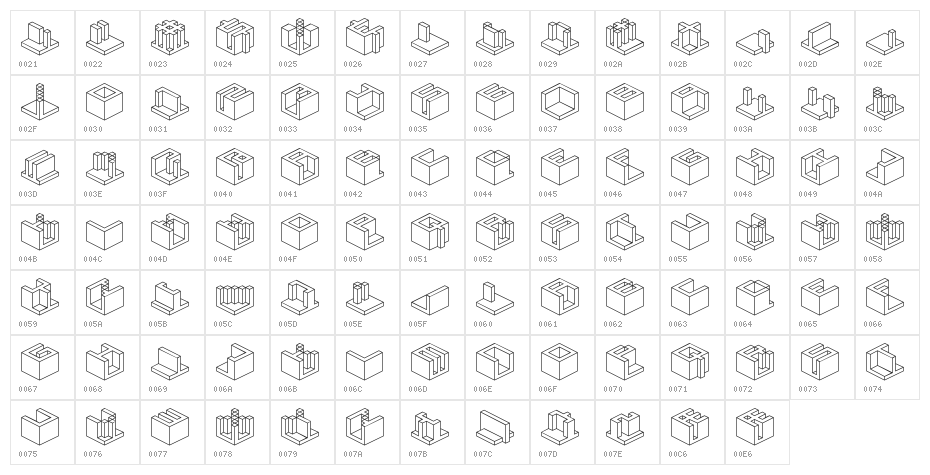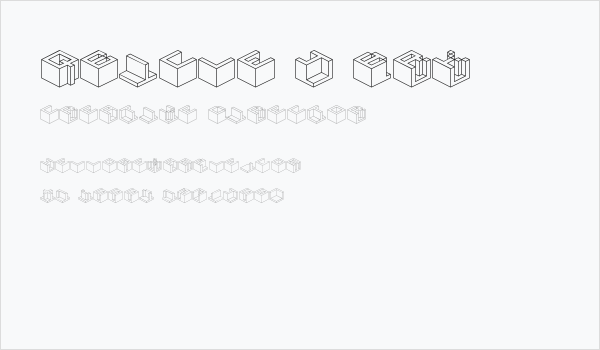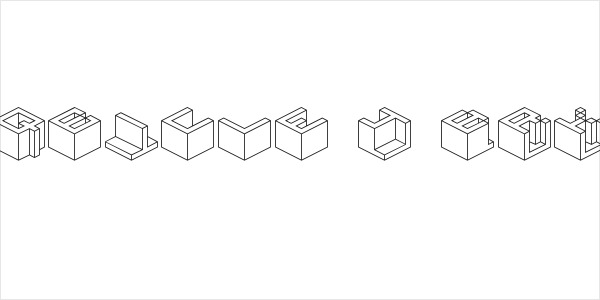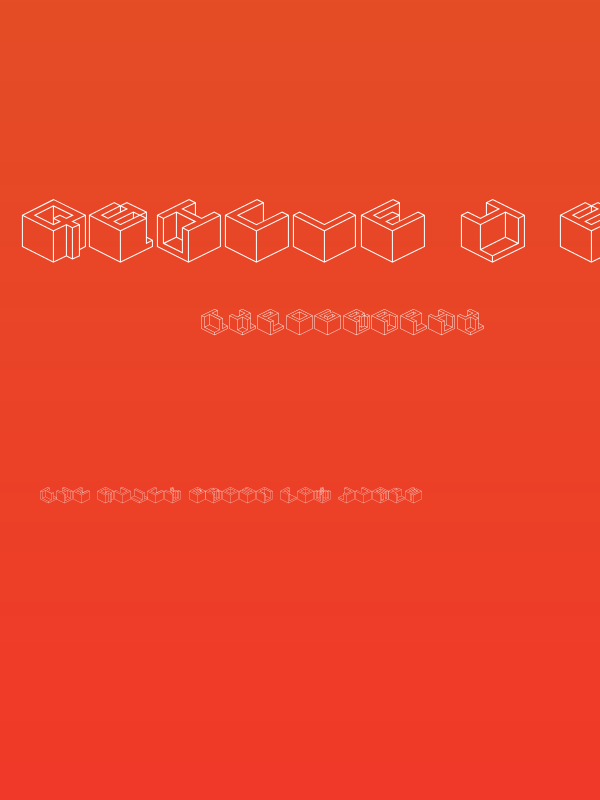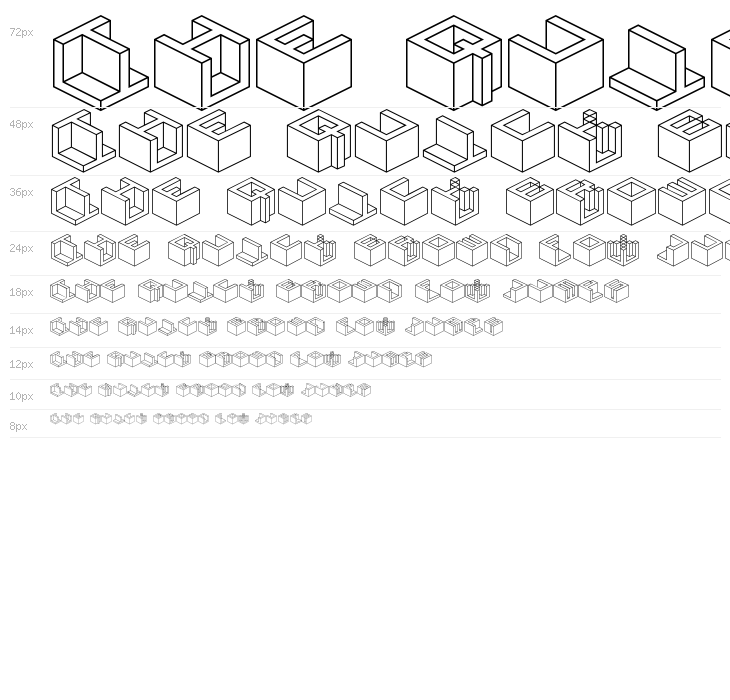
Qbicle 4 BRK Font
Qbicle 4 BRK Description
This font features a unique and innovative design, where each character is encapsulated within a cube-like structure, giving it a three-dimensional appearance. The lines are clean and precise, creating a futuristic and geometric aesthetic. The characters are constructed with a sense of depth and perspective, making them stand out in a visually striking manner. This font is ideal for projects that require a modern and edgy look, as it combines elements of architecture and typography. The overall design is both playful and sophisticated, making it suitable for a variety of creative applications.
Proposed ProjectsIdeal for branding, posters, album covers, and digital media that require a modern and distinctive visual impact.